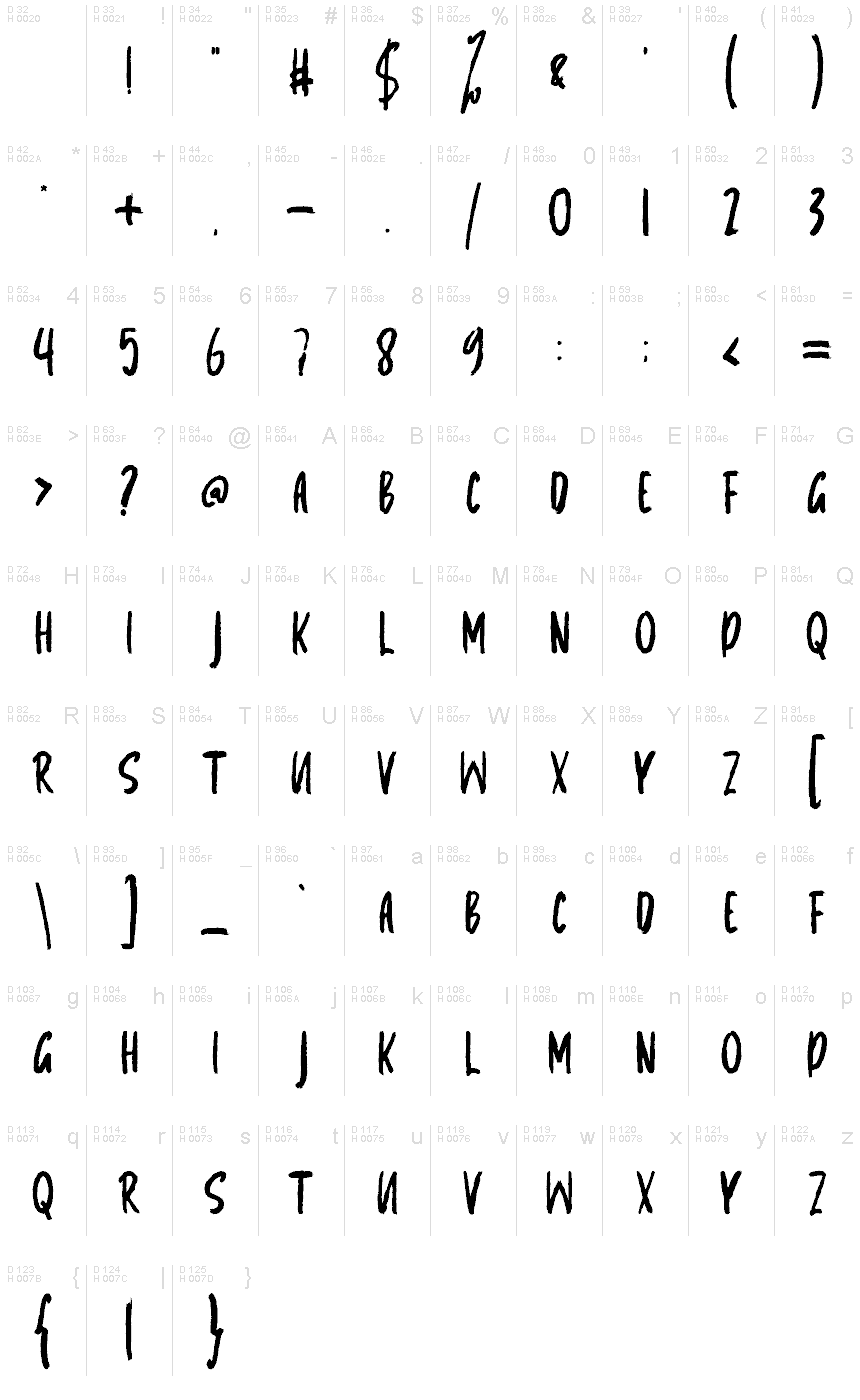
Blankdes
Inspired by Japanese manga and anime, Blankdes is an inky grunge script font that makes a strong, authentic statement. Created in collaboration with Skiiller Studio, it reflects a sense of urgency and authenticity. Its bold condensed style brings to mind the brush movements used in Japanese calligraphy with each character and symbol resembling an individual brushstroke.
Its rough, unique aesthetic and eye-catching presence will be ideal for music, fashion, and street art branding and packaging, apparel and accessories print, graphic and web design, music and album art, and much more. And as a bonus, it’s free!